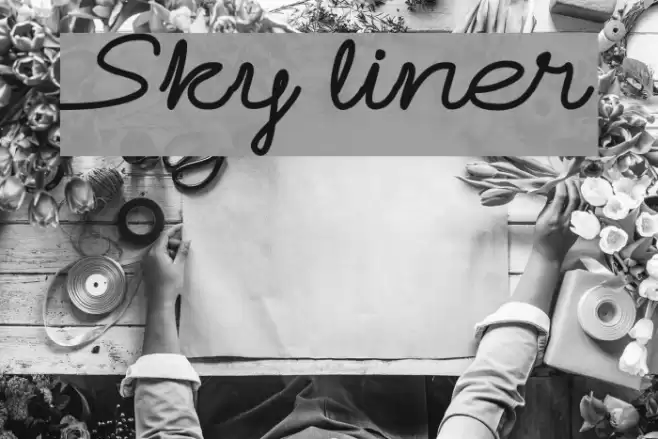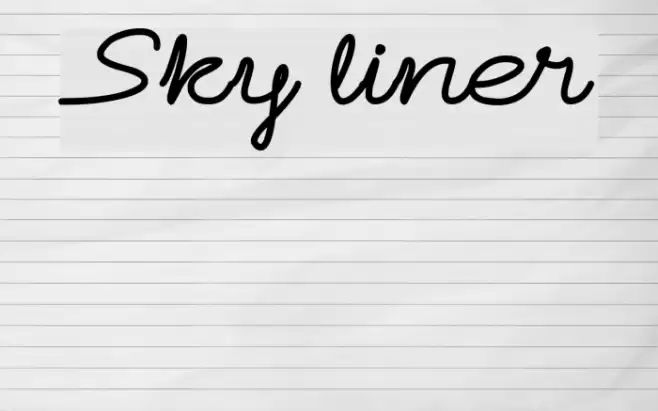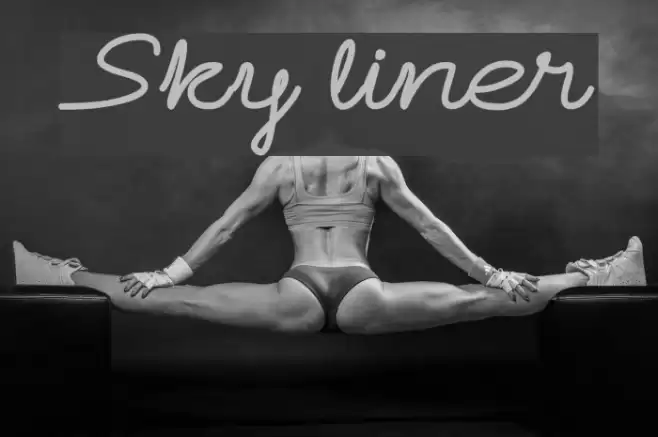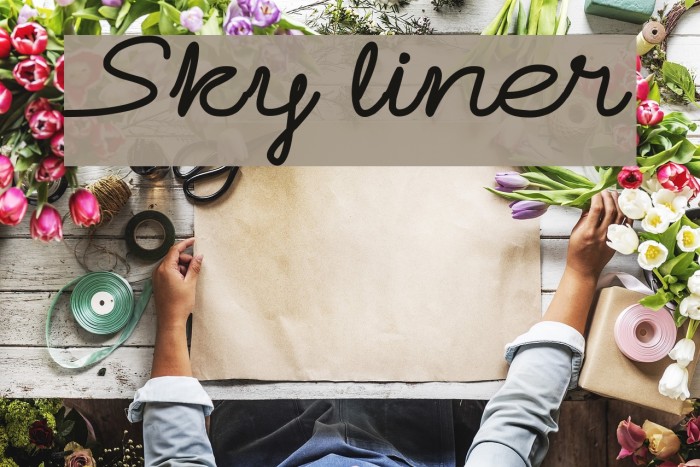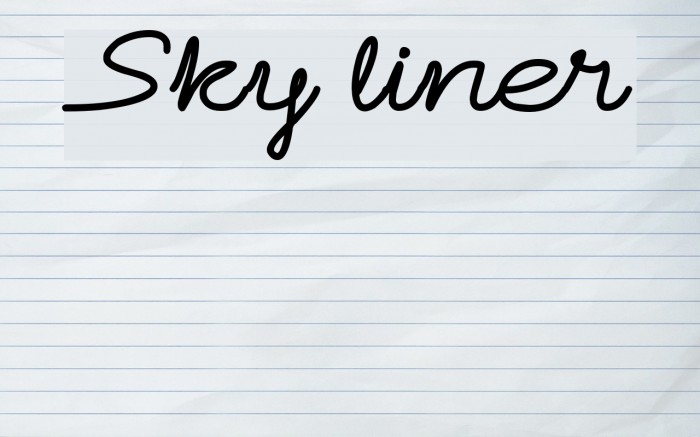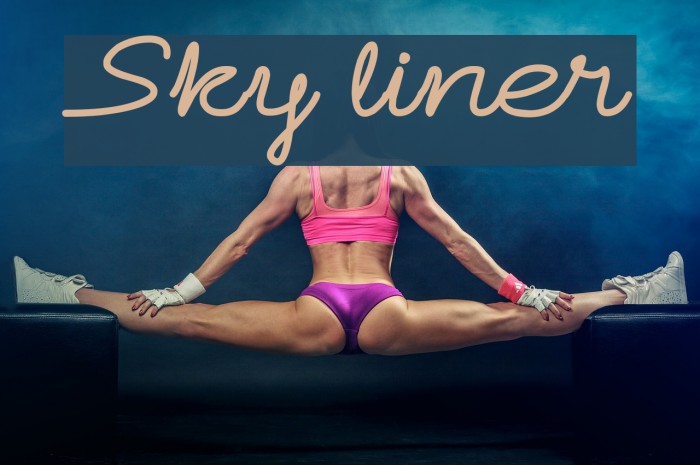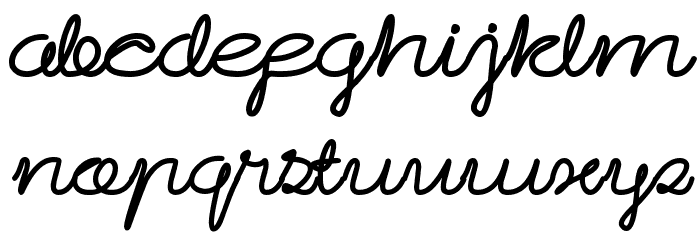
Sky liner Font
Sky liner Description
This font features a flowing, cursive style that mimics elegant handwriting. The letters are connected, creating a seamless and fluid appearance. The strokes are smooth and consistent, with a slight slant to the right, enhancing its graceful and sophisticated look. The uppercase letters are slightly larger and more pronounced, while the lowercase letters maintain a uniform height, contributing to its readability. The font exudes a sense of elegance and formality, making it suitable for projects that require a personal touch or a refined aesthetic.
A flowing, cursive font with elegant, connected letters and a slight right slant from Uncategorized fonts.
- Proposed Projects: Ideal for wedding invitations, greeting cards, personal branding, and elegant logos.
- Overall Style: Elegant
- Use Case: Logos, Invitations, Personal Branding